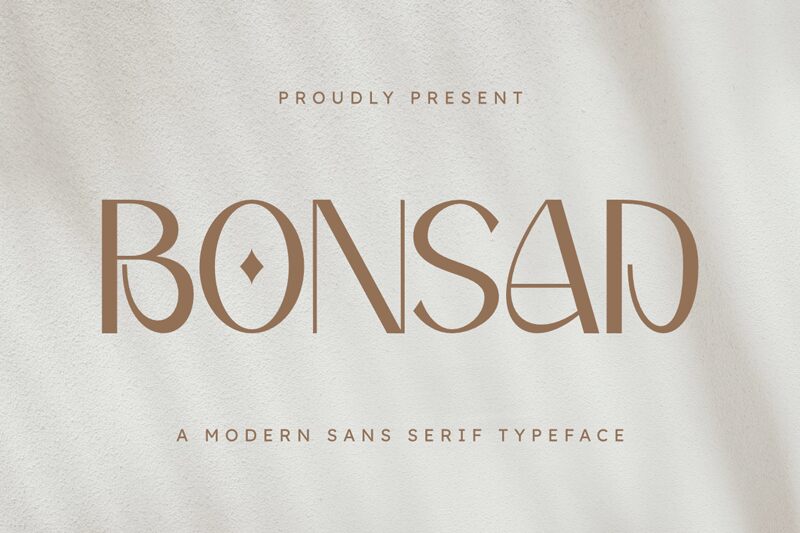
Bonsad font, designed by Muhammad Yafinuha, is a free font sans-serif typeface built for crafting unique typography. Fonts in this category are known for being geometric, elegant, and modern. Despite containing a single font, it covers a wide range of characters that you can utilize for a variety of projects that can be accessed via the keyboard. However, if you need more effects, try your creativity by combining it with other fonts that you already have.